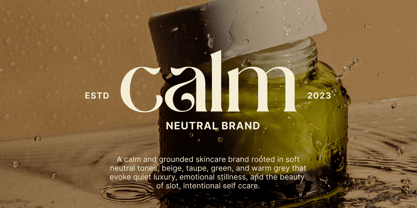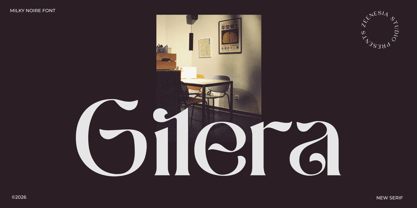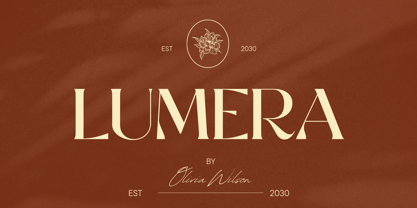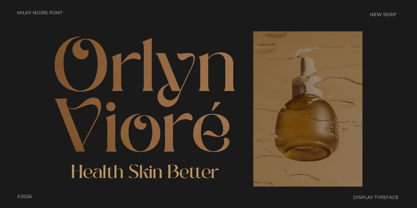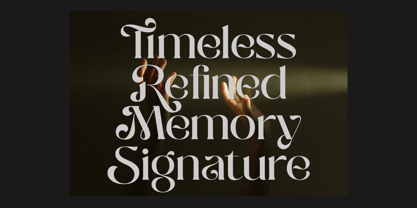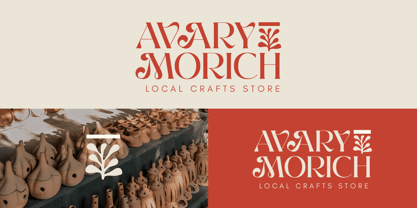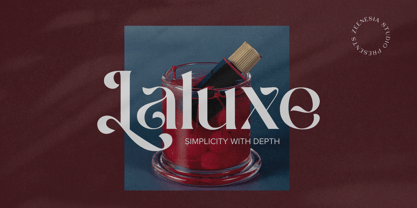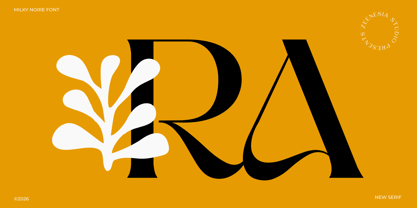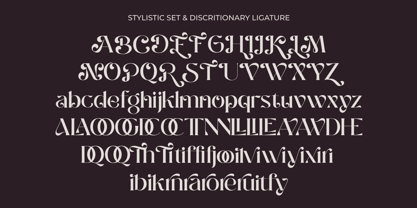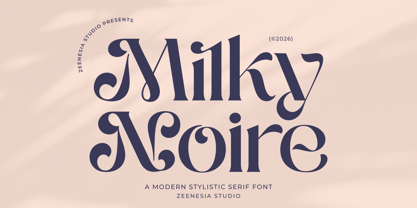
Milky Noire
by Zeenesia Studio
Milky Noire is a refined modern typeface that blends stylistic elegance with bold personality. Designed with graceful curves, distinctive serifs, and smooth high-contrast strokes, it captures a timeless yet contemporary aesthetic. Every letterform is carefully crafted to deliver a luxurious and expressive feel—perfect for branding, editorial layouts, logos, fashion campaigns, packaging, and sophisticated social media visuals. The unique swashes and sculpted details add character without losing clarity, making it both decorative and highly readable. Milky Noire embodies confidence, beauty, and artistic charm—an ideal choice for designers who want to create striking and memorable typography with a modern classic touch.